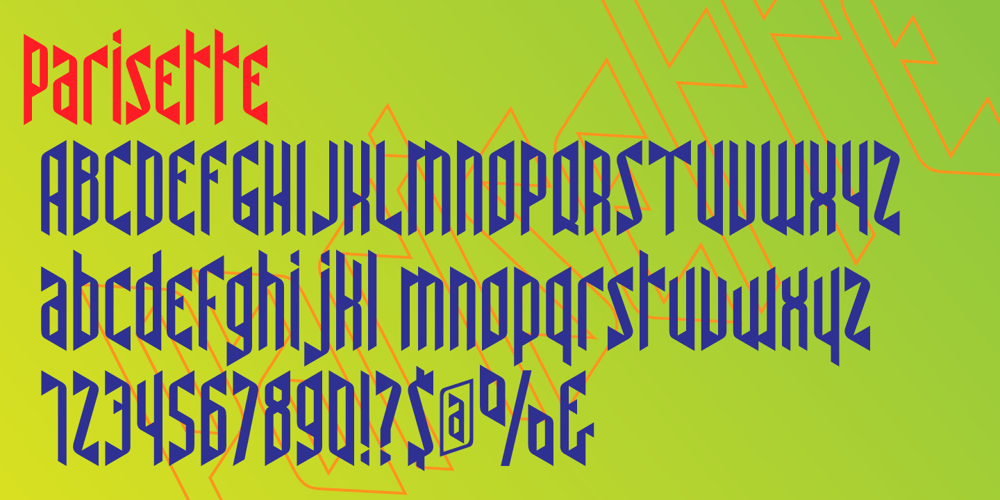
Parisette NB Font Family was designed by George E. Thompson and published by No Bodoni. Parisette NB contains 1 styles and family package options. These four typefaces, Berlinette NB, Lyonette NB, Marseillette NB and Parisette NB, were designed from the same basic shape, a geometric form that avoids strict horizontals and uses more offbeat triangular shapes. Parisette is a fanciful type that is both bouncy and biting. The frivolity and quirk of the narrow width is offset by the razor-sharp, hatchet horizontals, which require protective gloves when type setting. This is a good typeface for enigmatic signs at postmodern student demonstrations.